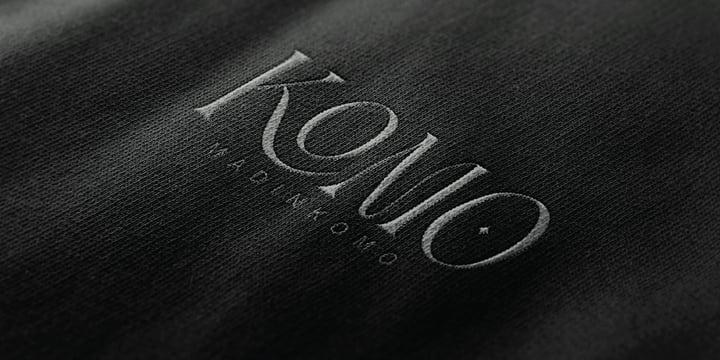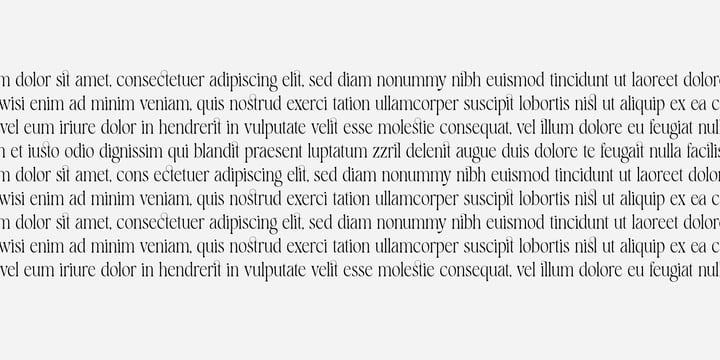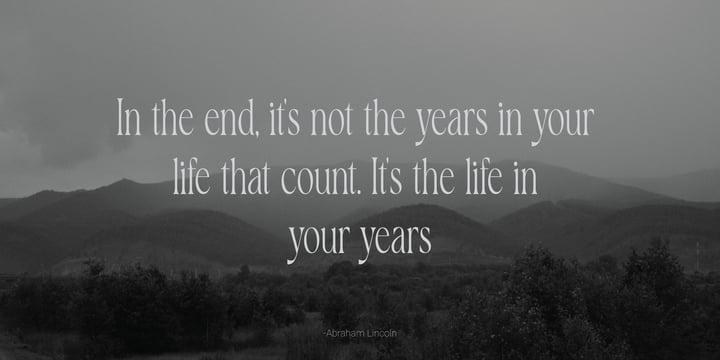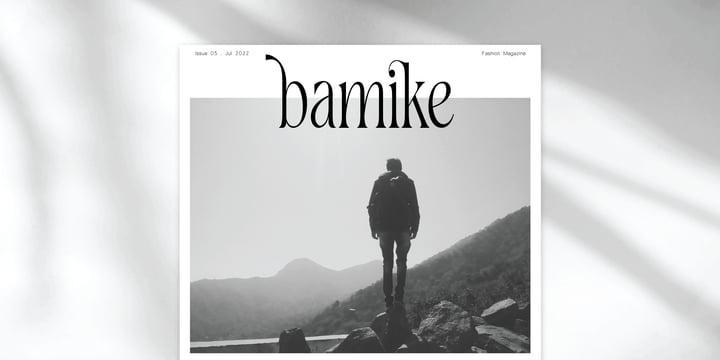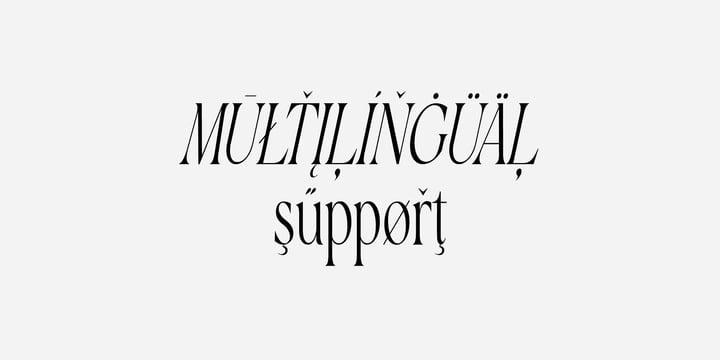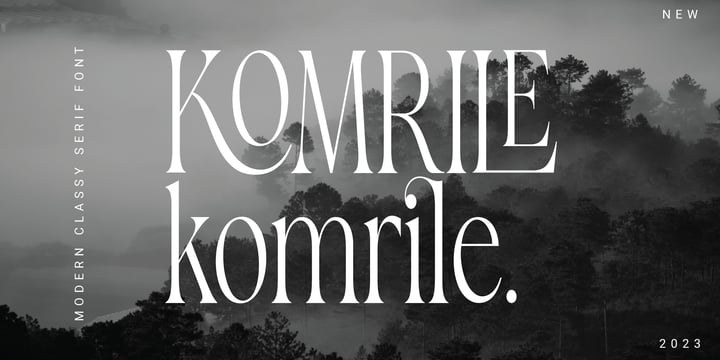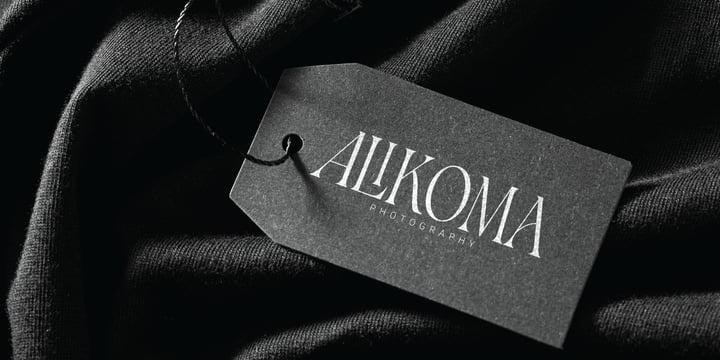
Komrile Font Family
Komrile is a serif font combines a vintage look with a modern flair that give it a fancy and unique style. This incredible font is perfect for branding, logos, invitation, social media posts, photography, watermark, and more. Komrile comes with regular, italic, Condensed and Condensed italic font styles—Uppercase & lowercase letters, numbers, punctuation, ligatures, alternates and multilingual support.
Komrile Font Family is a Serif Fonts font that brings a professional and versatile look to your projects. Komrile is a serif font combines a vintage look with a modern flair that give it a fancy and unique style.